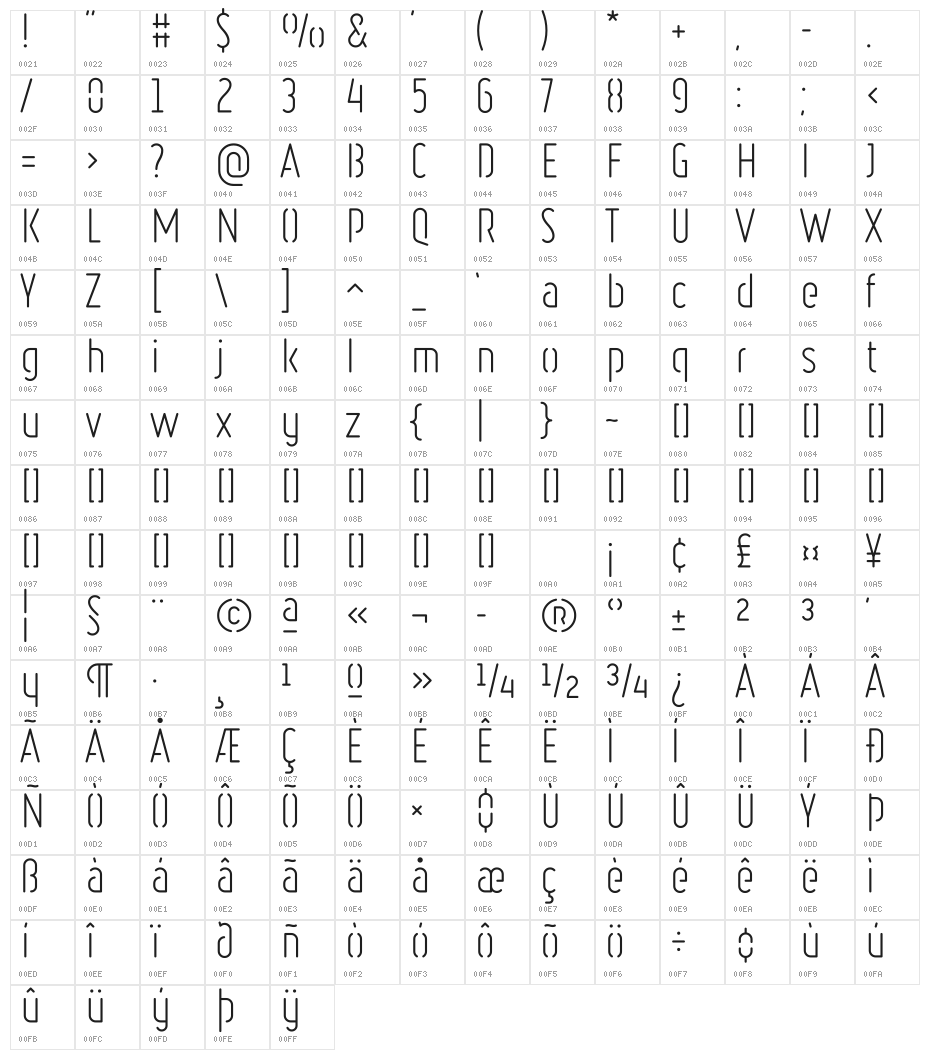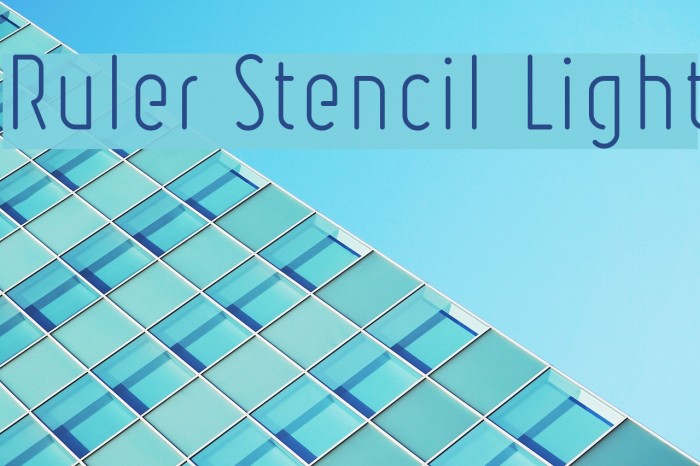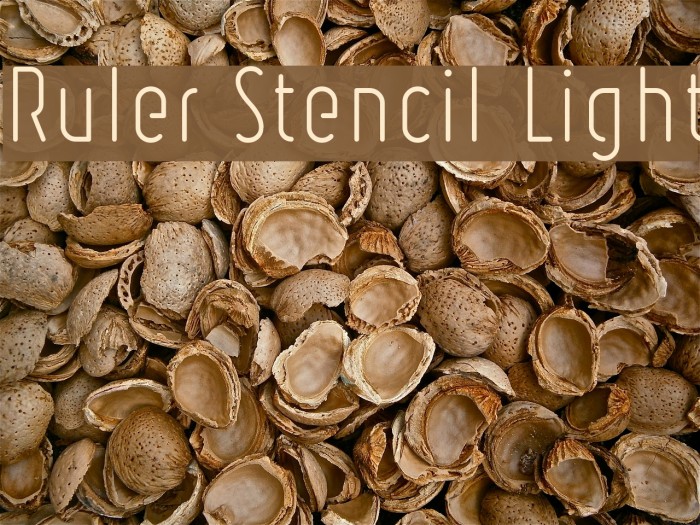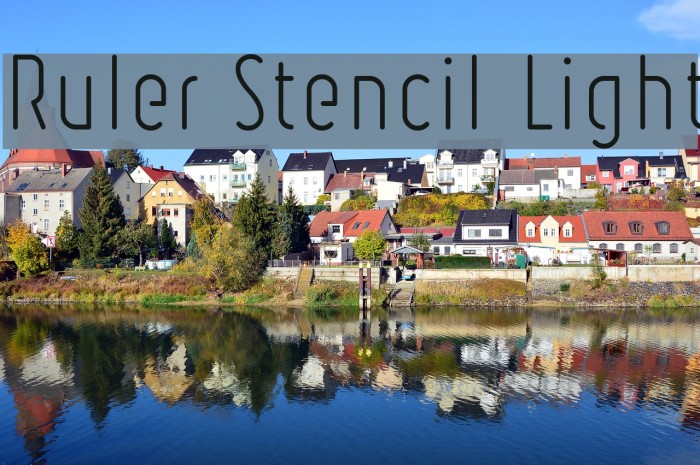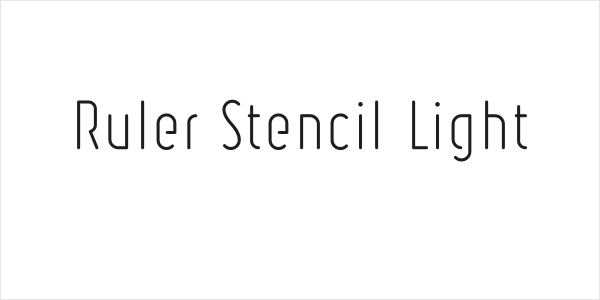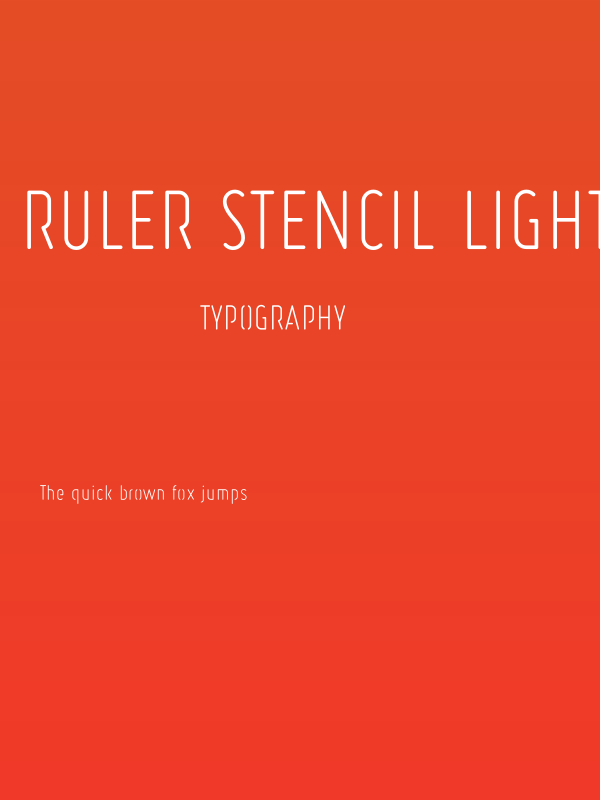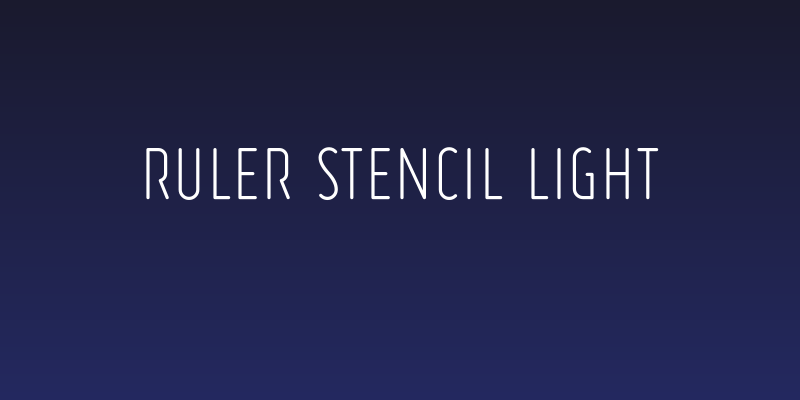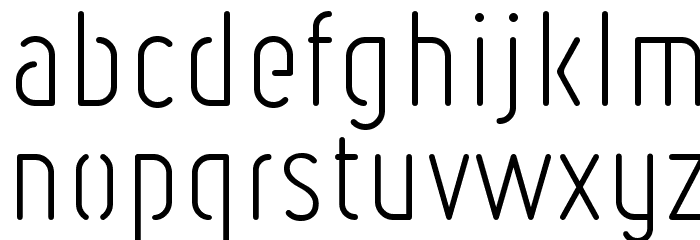
Ruler Stencil Light Font
Ruler Stencil Light Description
This font features a clean, geometric design with a stencil-like appearance, characterized by breaks in the strokes that give it a modern and industrial feel. The uppercase and lowercase letters maintain a consistent height, contributing to a uniform look. The numerals are distinct and align well with the overall style, making them easily readable. Special characters are included, matching the font's minimalist aesthetic. The thin strokes and open counters enhance its legibility, while the stencil breaks add a unique touch, making it suitable for both digital and print media.
| Use Case | Headlines, Logos, Signage |
| Proposed Projects | Ideal for branding, signage, packaging, and editorial design where a modern and industrial look is desired. |